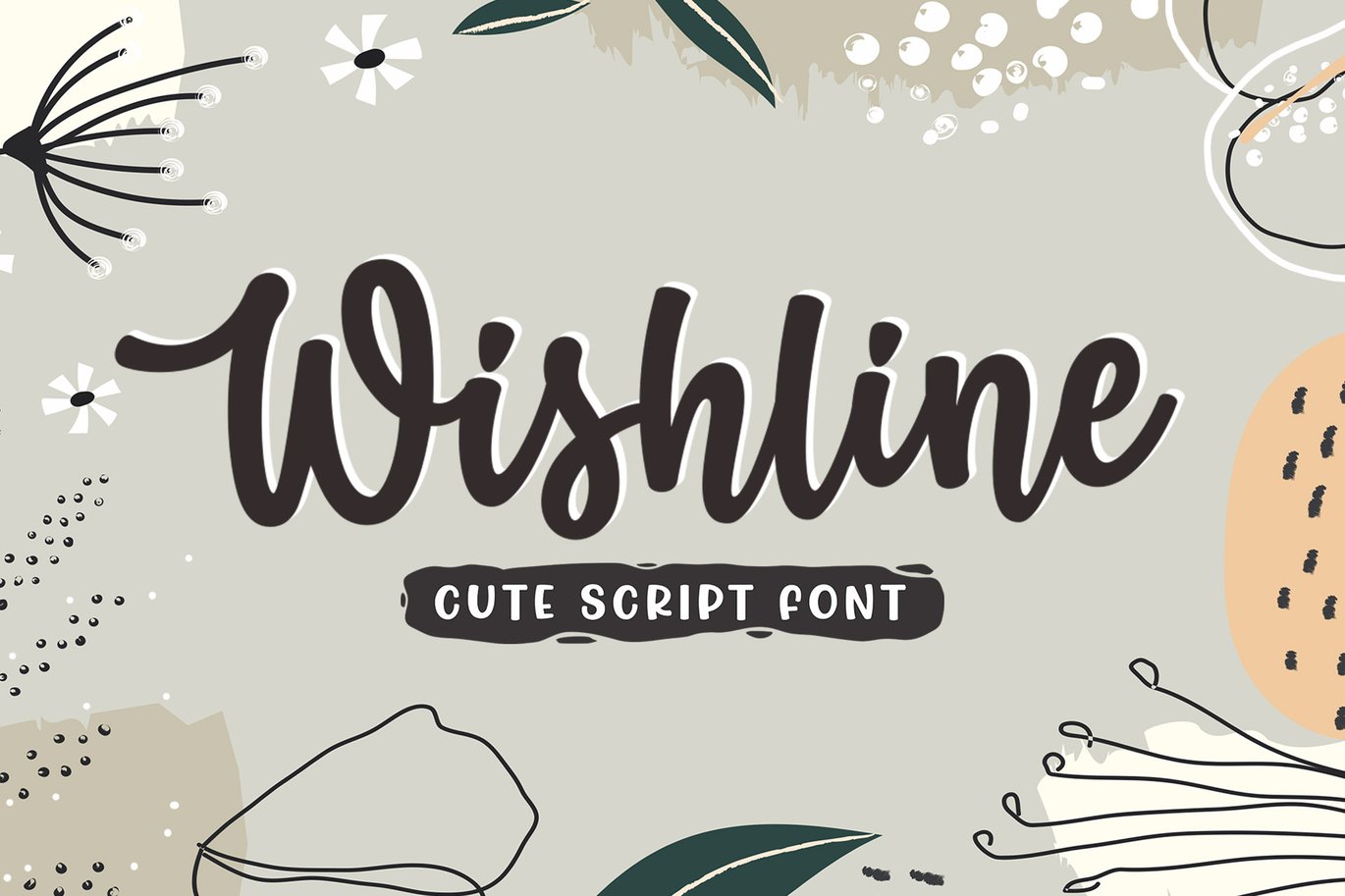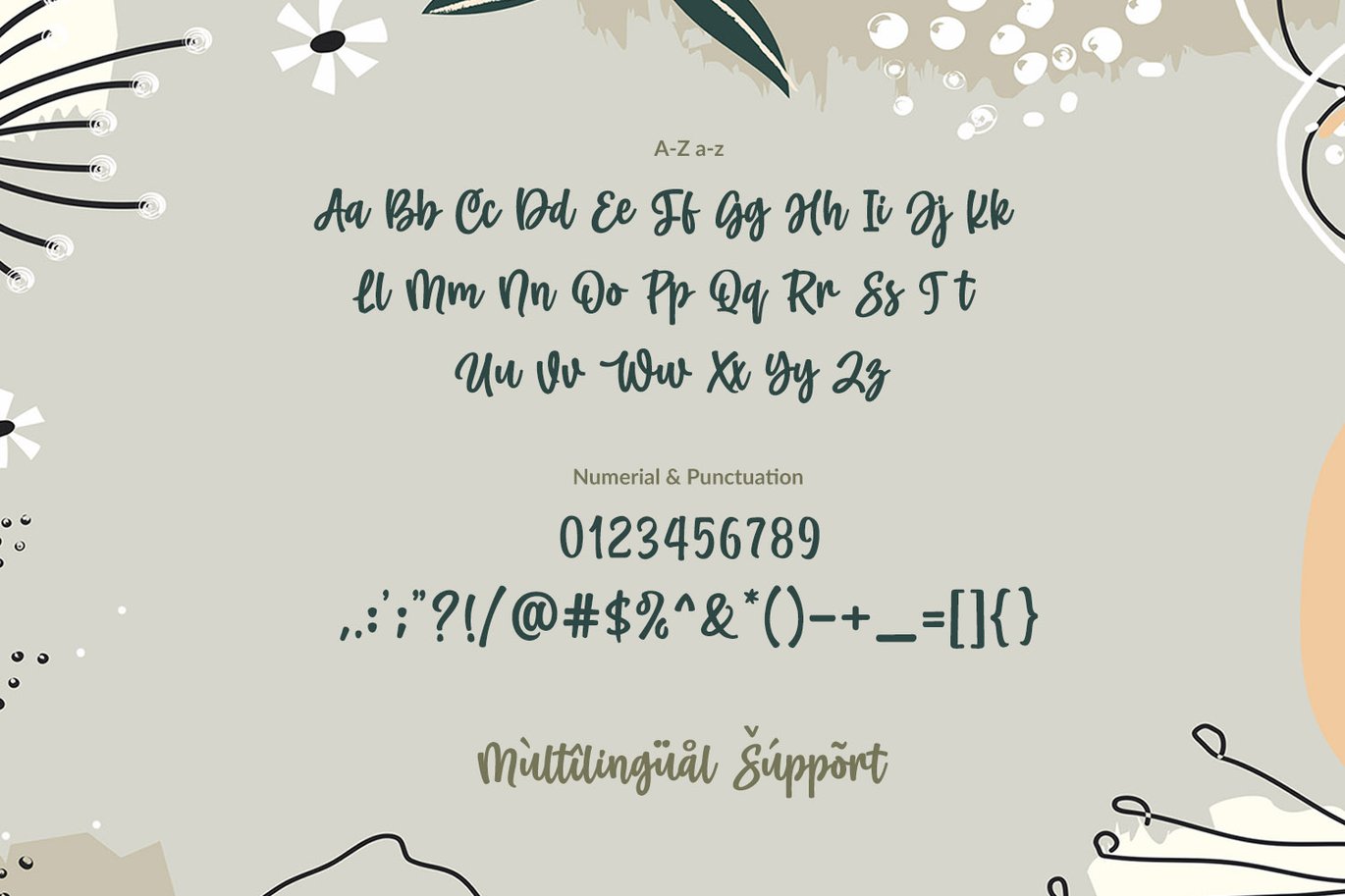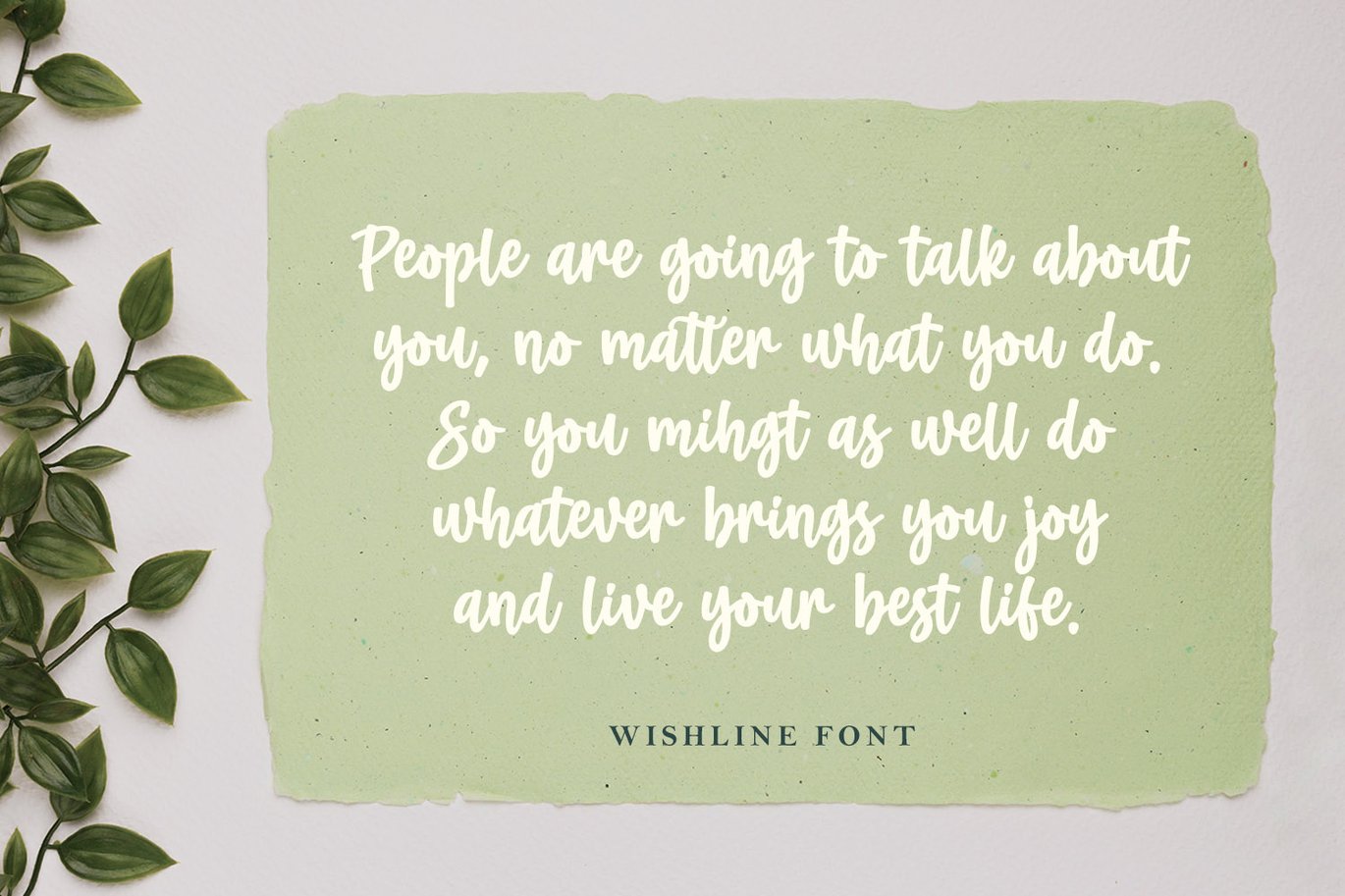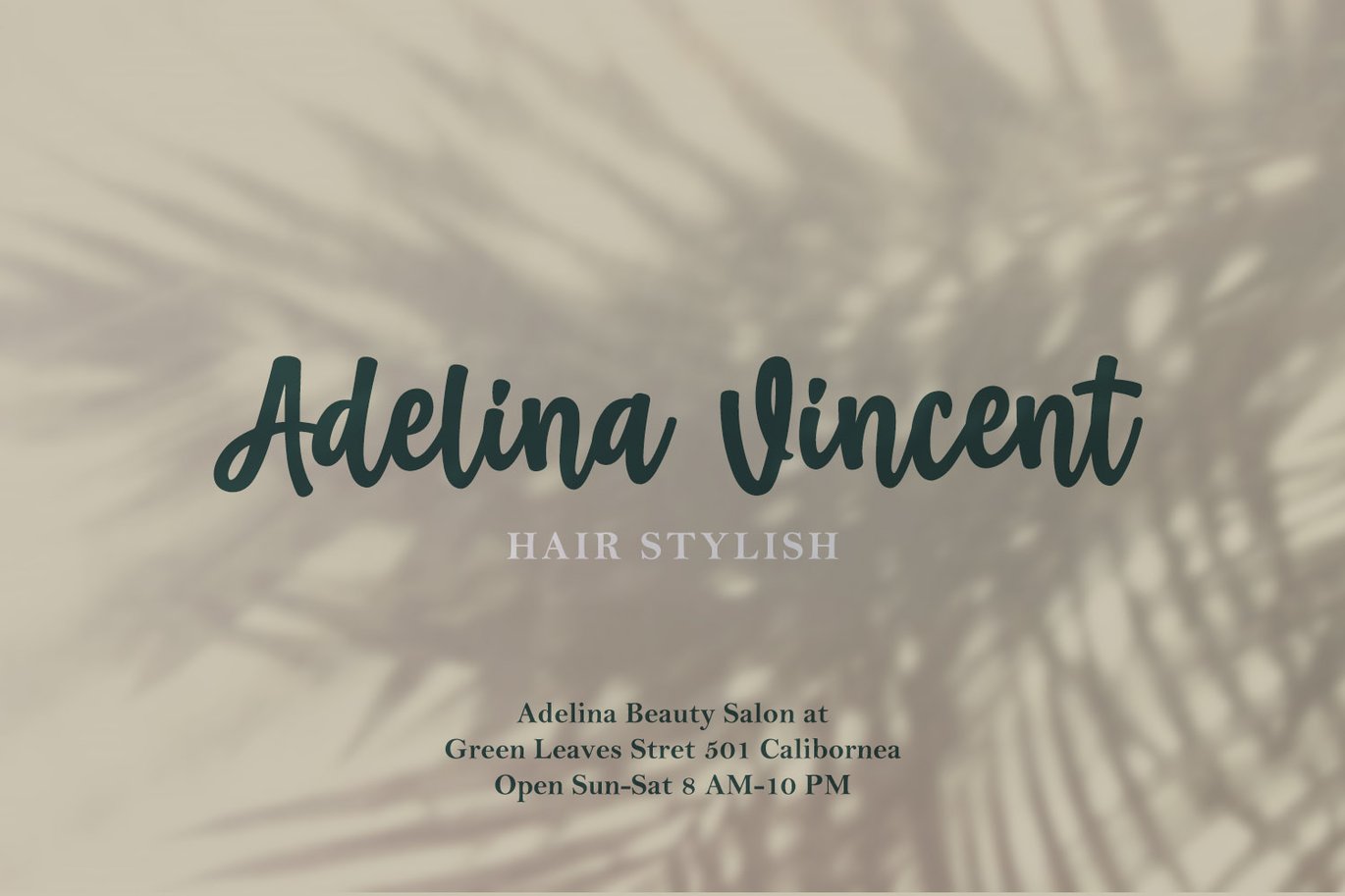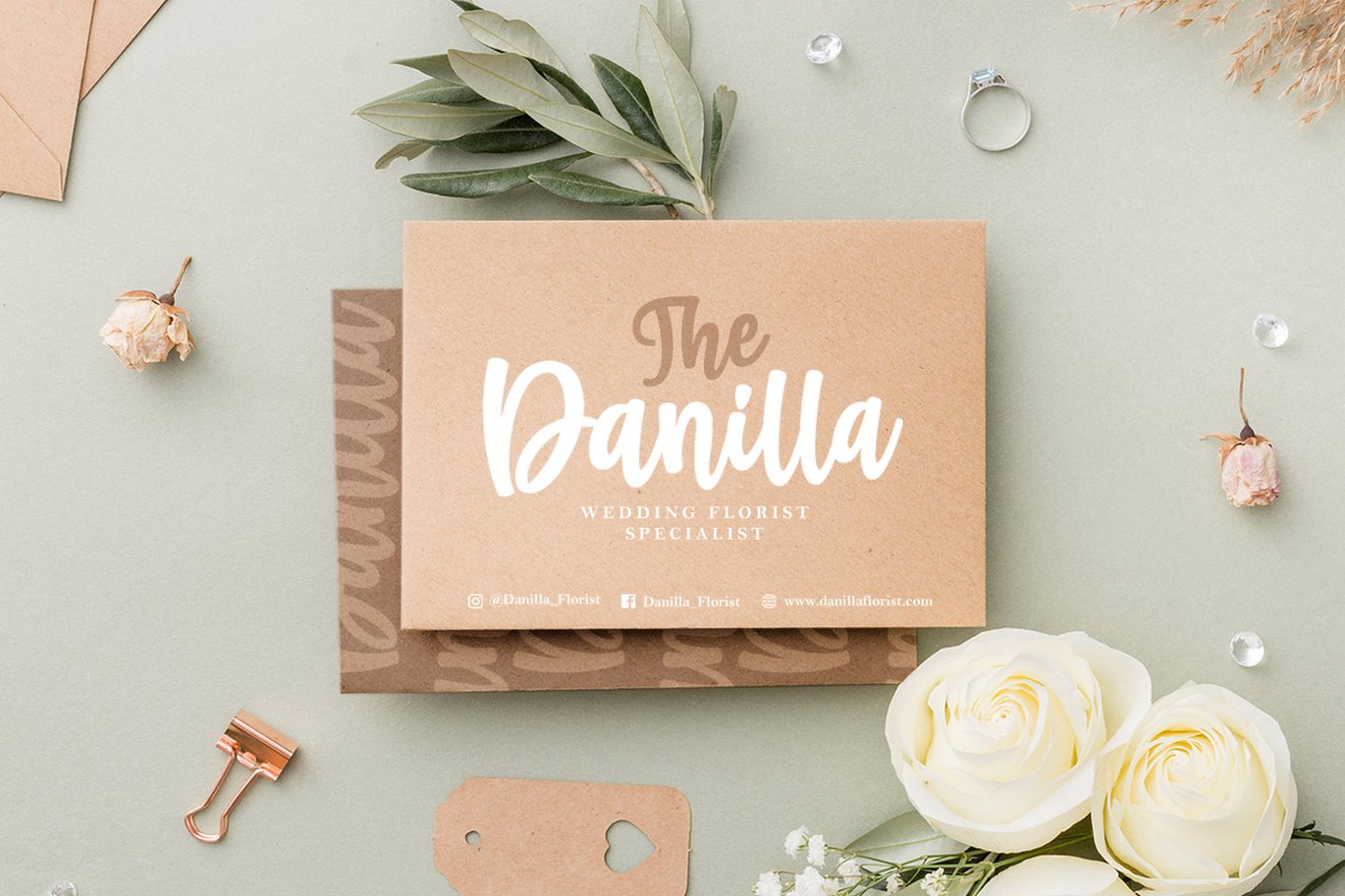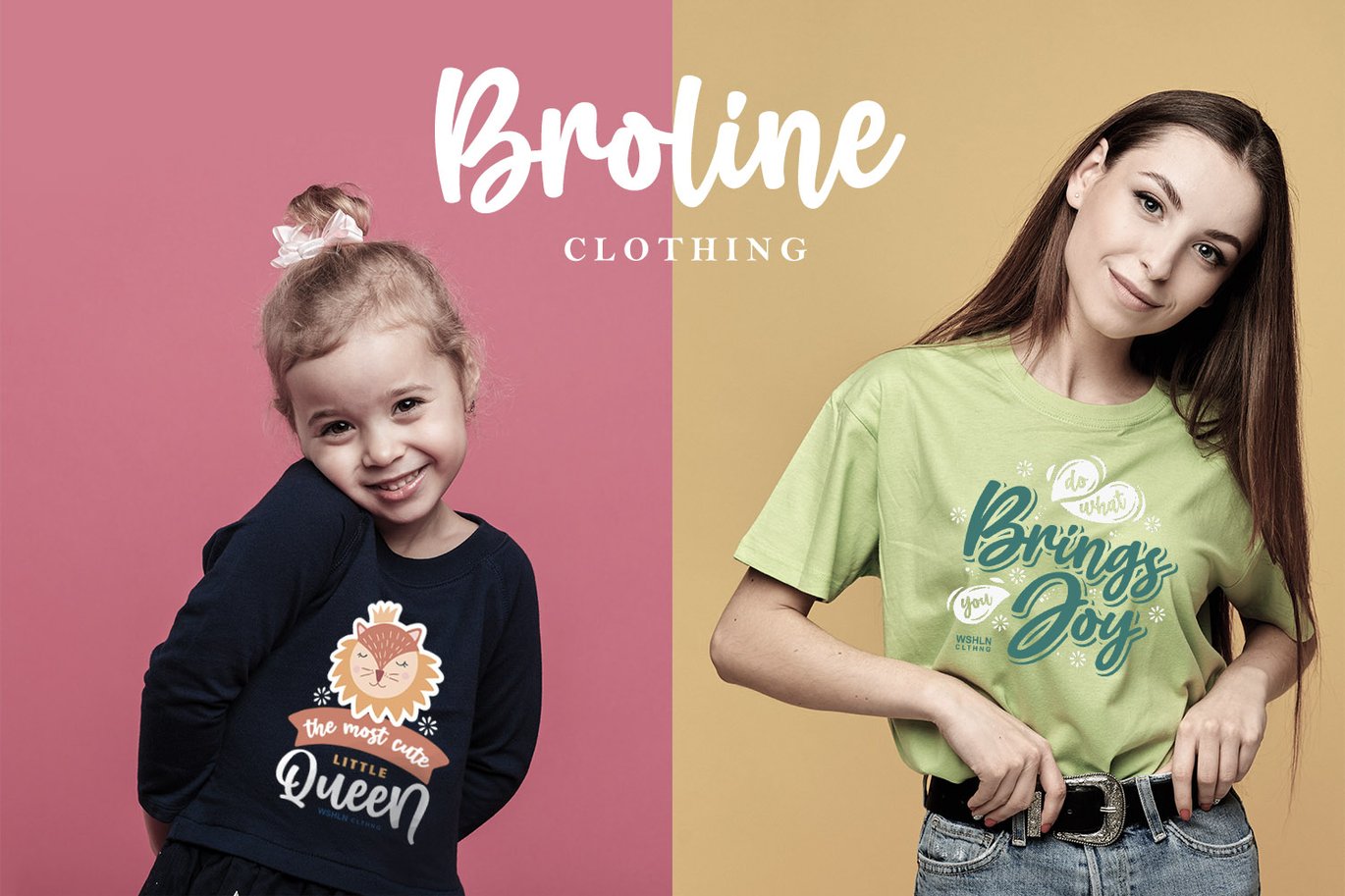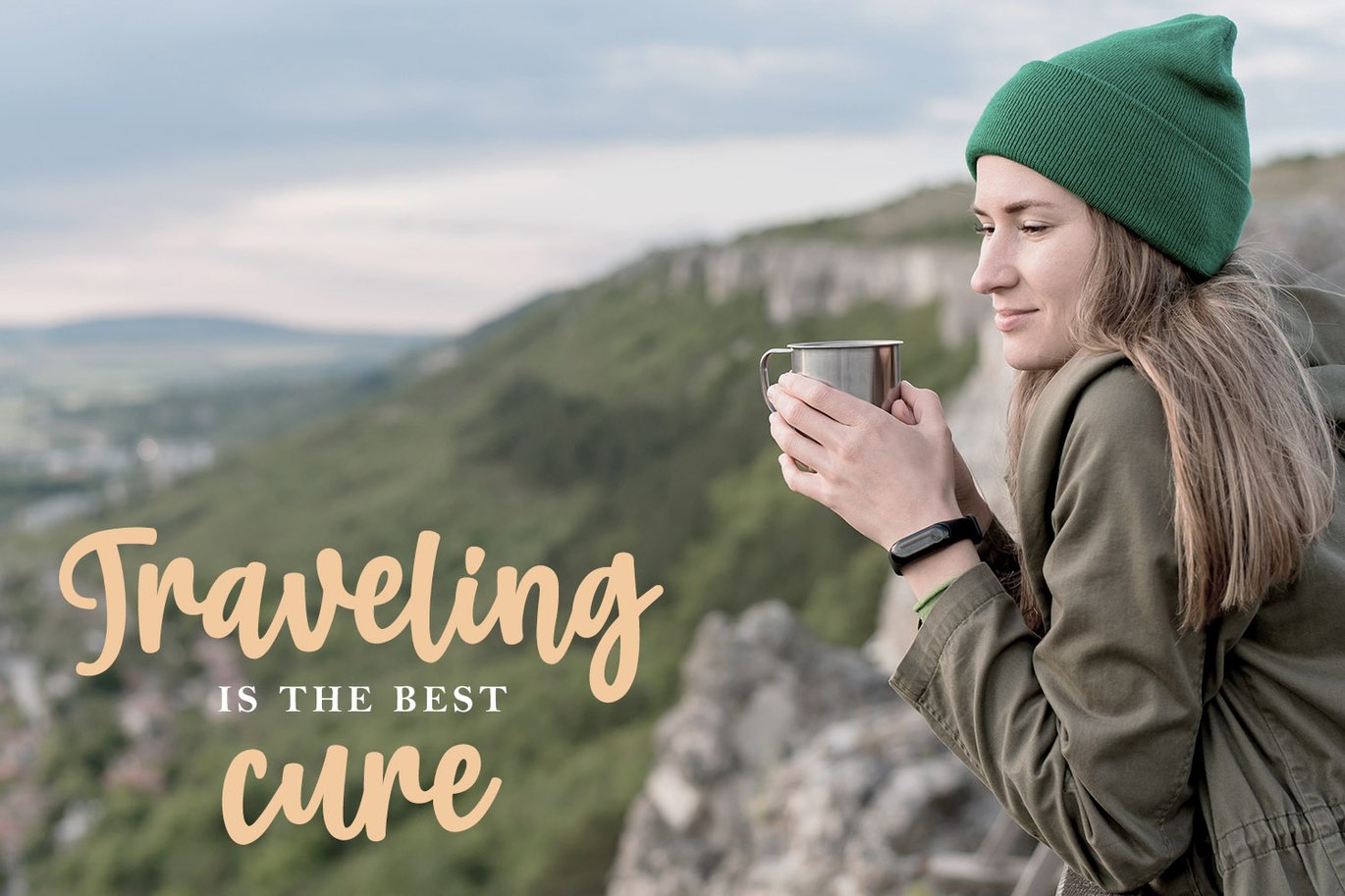
Wishline – Cute Script Font
Wishline is an exquisite handwritten font, masterfully designed to become a true favorite.
It maintains its classy calligraphic influences while feeling contemporary and fresh.